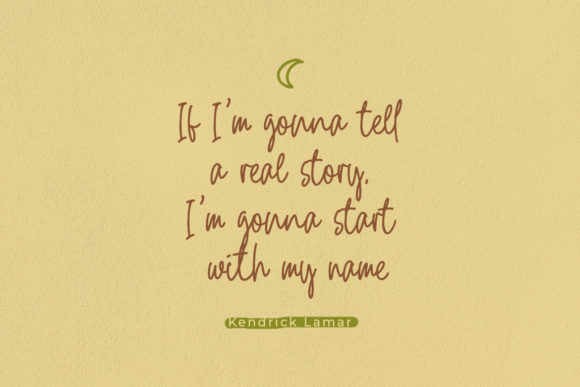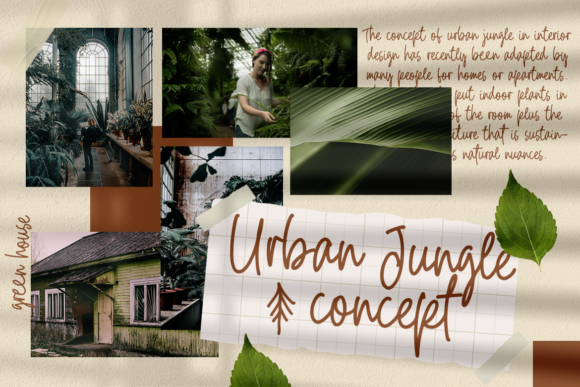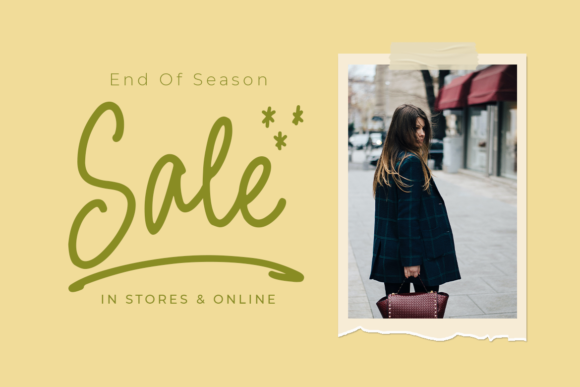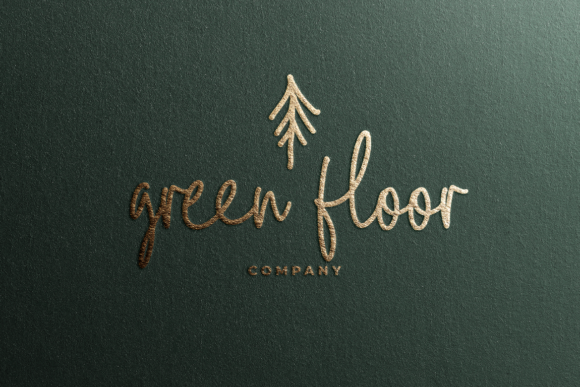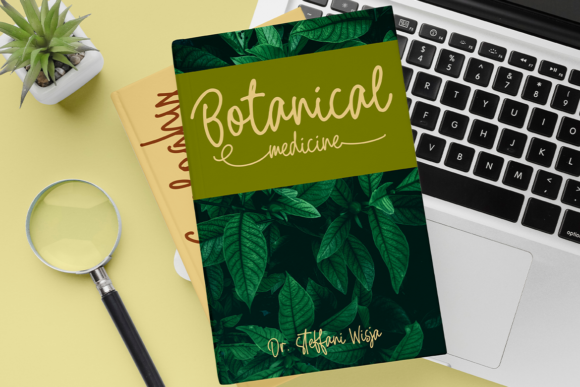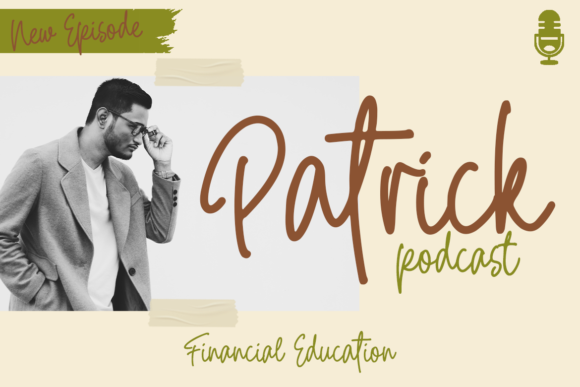
Introducing De Jungle Garden Font: A Sweet and Sloppy Handwritten Delight
Are you tired of using the same old fonts for your designs? Look no further! De Jungle Garden Font is a unique and charming handwritten font that is sure to add a touch of personality to your creations. This sweet and slightly sloppy font is perfect for designers and crafters who want to add a bit of whimsy and flair to their work.
What Makes De Jungle Garden Font So Special?
De Jungle Garden Font is a one-of-a-kind font that boasts a range of characteristics that set it apart from other fonts. Here are just a few reasons why this font is a must-have for designers and crafters:
- Unique and Beautiful Touch: Every letter in De Jungle Garden Font has a unique and beautiful touch that will make your designs come alive. The font’s handwritten style gives it a personal and organic feel that is sure to capture the attention of your audience.
- Sweet and Sloppy: De Jungle Garden Font is a sweet and slightly sloppy font that adds a touch of whimsy and playfulness to your designs. This font is perfect for creating eye-catching logos, branding, and quotes that will leave a lasting impression.
- Perfect for Logos and Branding: De Jungle Garden Font is the perfect choice for creating eye-catching logos and branding materials. The font’s unique style and charm will help your brand stand out from the crowd and leave a lasting impression on your customers.
Why Designers and Crafters Love De Jungle Garden Font
De Jungle Garden Font has quickly become a favorite among designers and crafters, and for good reason. Here are just a few reasons why this font is a must-have for creative professionals:
- Easy to Read: Despite its handwritten style, De Jungle Garden Font is easy to read and understand. This makes it perfect for creating designs that need to communicate a message, such as logos, branding materials, and quotes.
- Versatile: De Jungle Garden Font is a versatile font that can be used in a range of design applications, from logos and branding to quotes and social media graphics.
- High-Quality: De Jungle Garden Font is a high-quality font that is designed to deliver exceptional results. The font is carefully crafted to ensure that it looks great in any design application.
De Jungle Garden Font is a sweet and slightly sloppy handwritten font that is perfect for designers and crafters who want to add a touch of personality to their creations. With its unique and beautiful touch, this font is sure to make your designs come alive. Whether you are creating logos, branding materials, or quotes, De Jungle Garden Font is a must-have font that will help you stand out from the crowd.